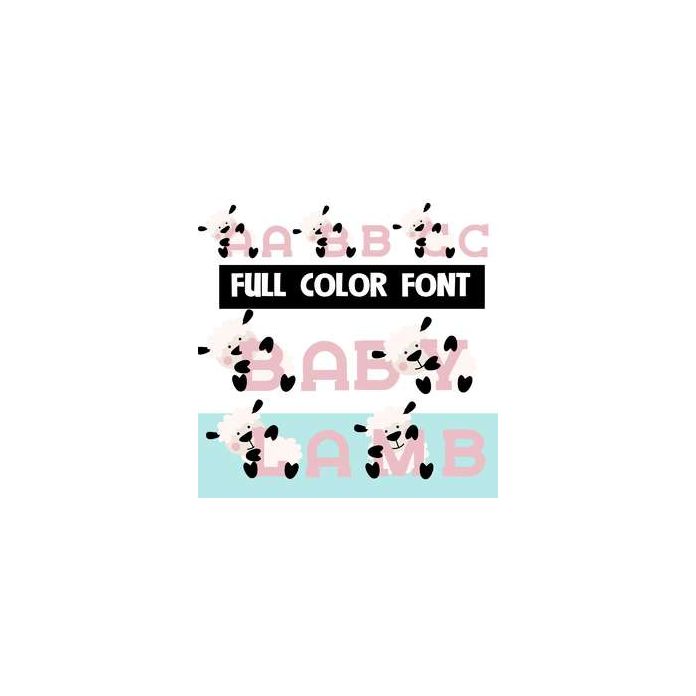
This full-color font features bunnies holding letters on the uppercase and a lowercase without bunnies. For best results mix up as you type. This font works best for titles, displays, posters and more. Please note color fonts will show as black in non compatible programs. This font type is compatible with Silhouette Studio.